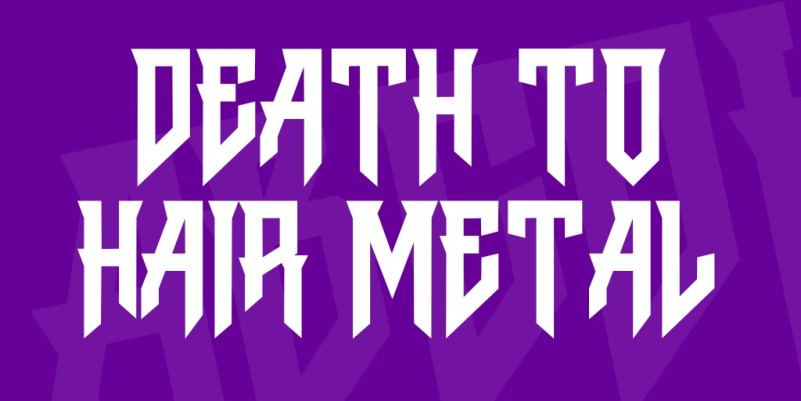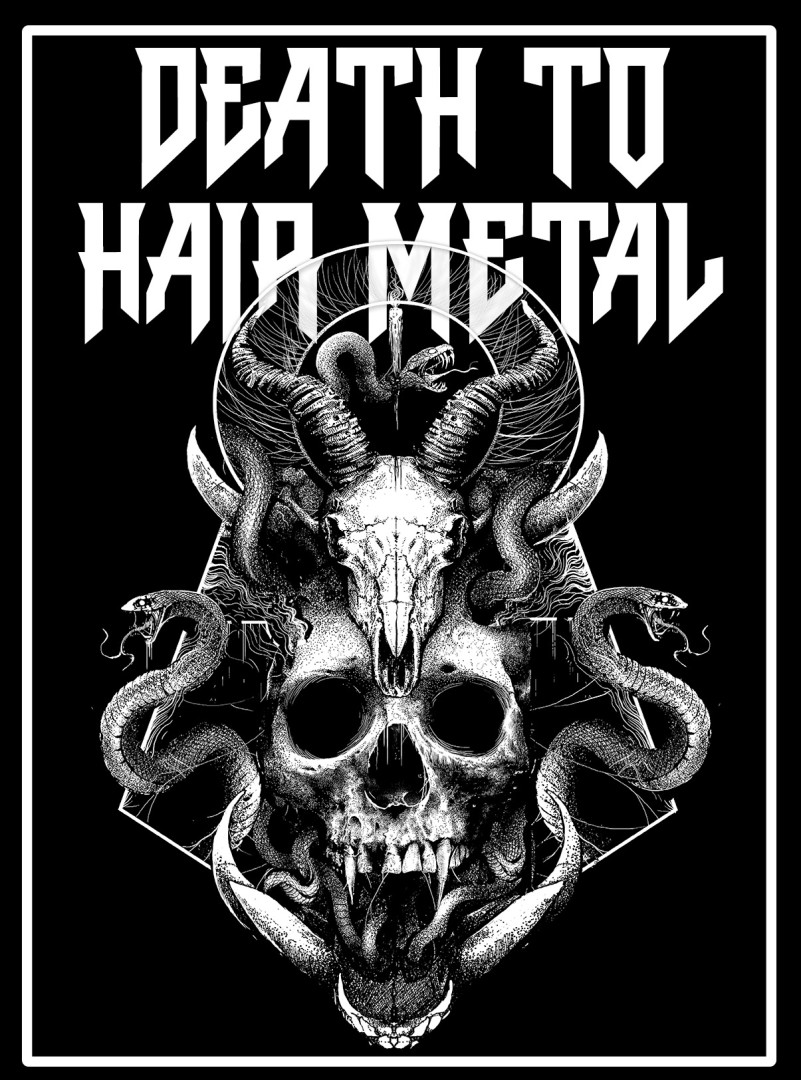
Death To Hair Metal Font
Death To Hair Metal Font, This bundle features strong, confident and powerful typefaces designed to work great with sports logos, game , film ,club branding, apparel applications, labels and more.